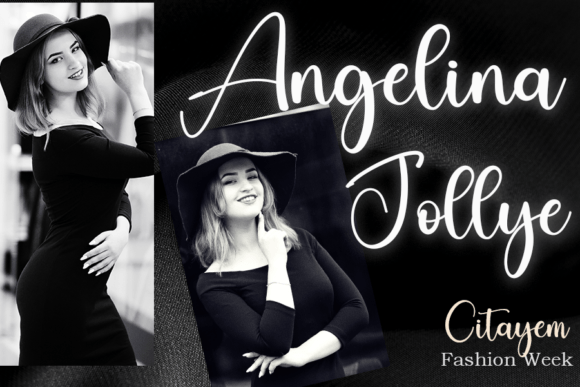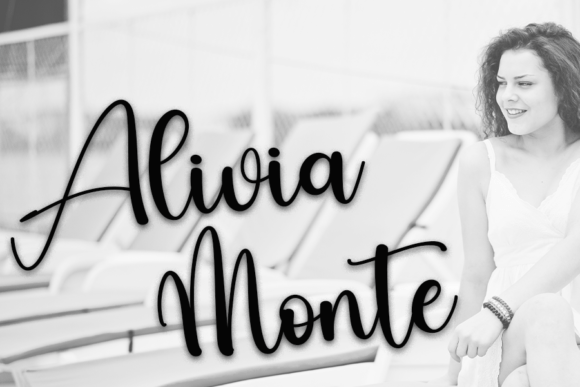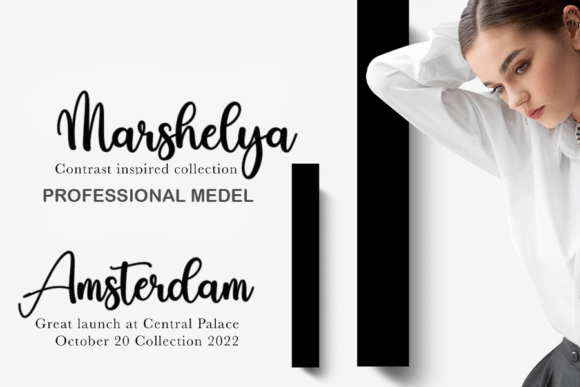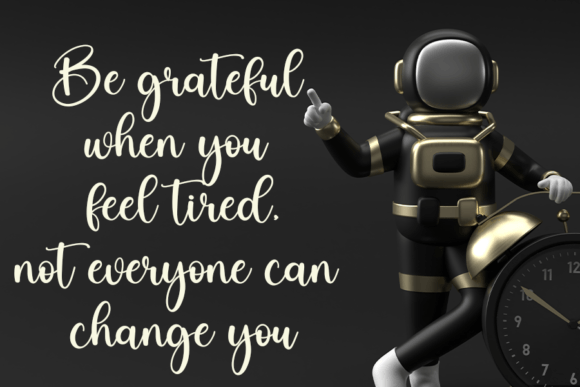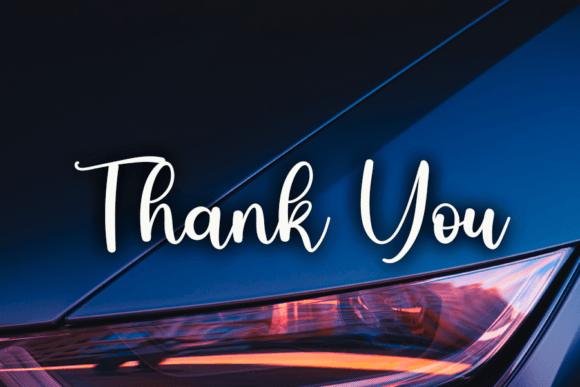
The Elusive Perfect Font: My Love Affair with Absolute
I’ll never forget the struggle I faced while working on a branding project for a boutique hotel. My client wanted a font that exuded elegance, sophistication, and a touch of whimsy. I scoured the internet, tried countless fonts, but nothing seemed to fit the bill. That was until I stumbled upon Absolute, a beautiful handwritten font that stole my heart. In this article, I’ll share my experience with Absolute, its features, and how to make the most of it in your designs.
An Honest Review of Absolute
• ✨ Elegant and refined, perfect for high-end projects
• ✅ Incredibly distinct and timeless style
• 💫 Supports OpenType features, glyphs, and stylistic alternates
• 🎨 Highly versatile, suitable for various design applications
• 🤔 Some users may find the font a bit too ornate for certain projects
• ⚠️ Limited availability of condensed or bold weights
3. Experiment with OpenType features, such as ligatures and stylistic alternates, to add visual interest
The Story Behind Absolute
Absolute was designed by a talented typographer who aimed to create a font that embodies elegance and sophistication. Inspired by classic calligraphy, the designer poured their heart and soul into crafting a font that would stand the test of time. The result is a beautiful, handwritten font that exudes refinement and poise.
What makes Absolute unique? Absolute’s unique blend of elegance and whimsy sets it apart from other fonts.
Is Absolute suitable for body text? While Absolute is beautiful, it’s best used for headlines and titles due to its ornate nature.